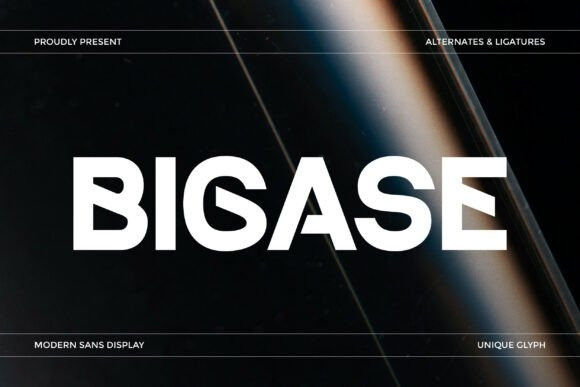
Bigase Font
Bigase Font is a modern sans display font designed to make a bold and confident statement. With its clean structure, strong shapes, and contemporary style, Bigase delivers a striking visual presence that instantly captures attention. Its modern design approach ensures a perfect balance between simplicity and impact.